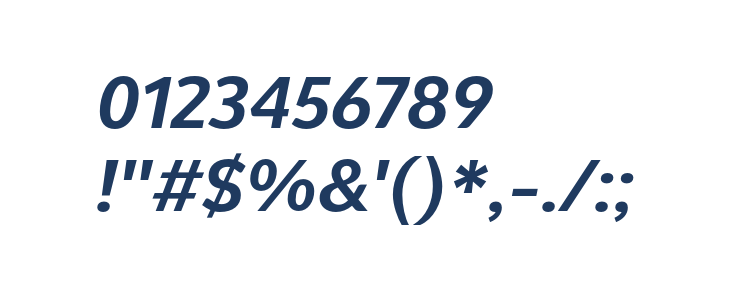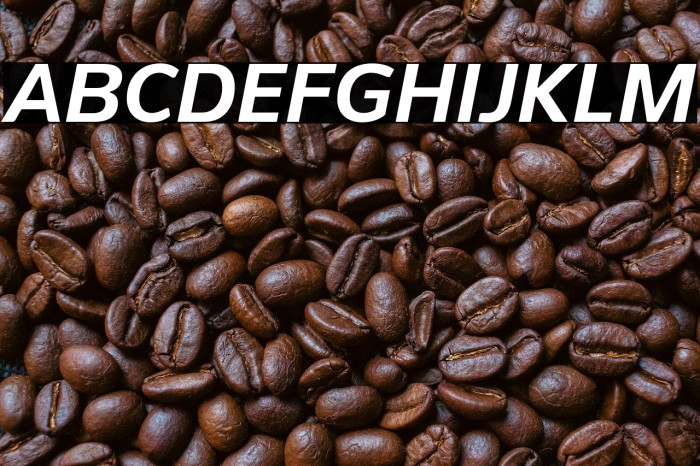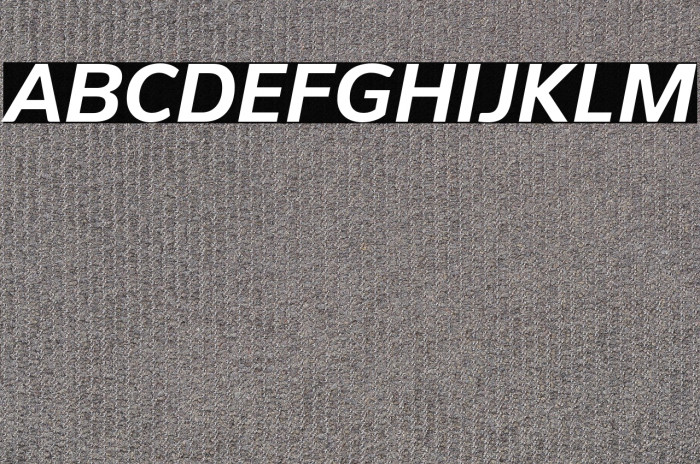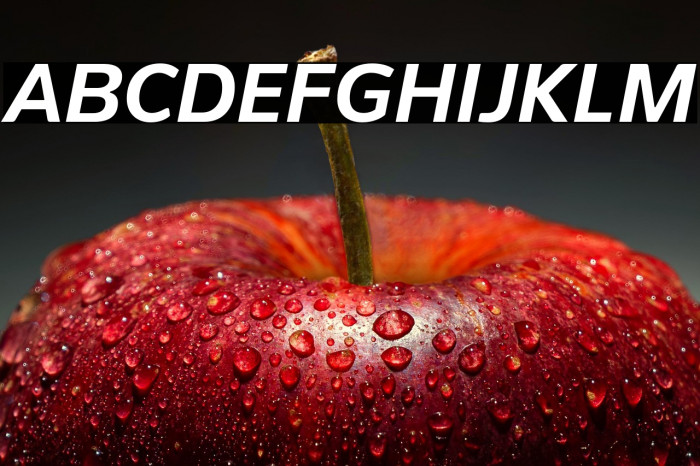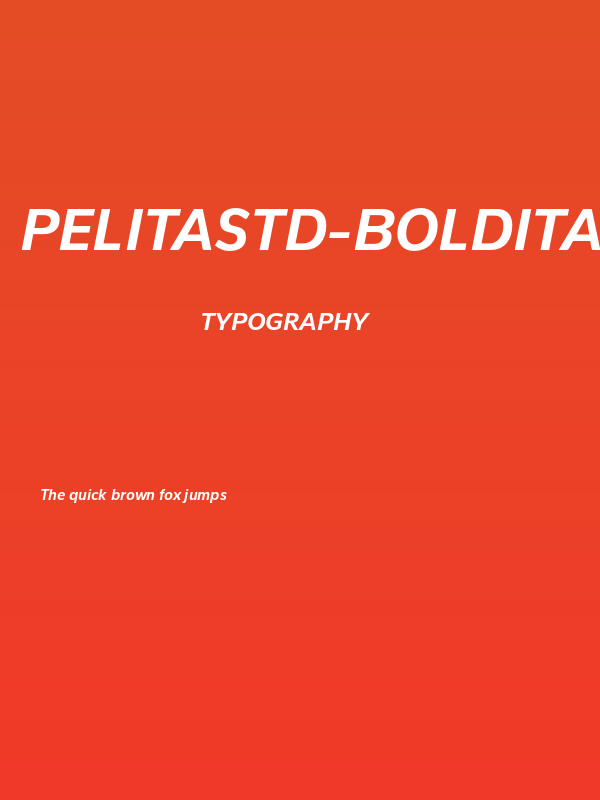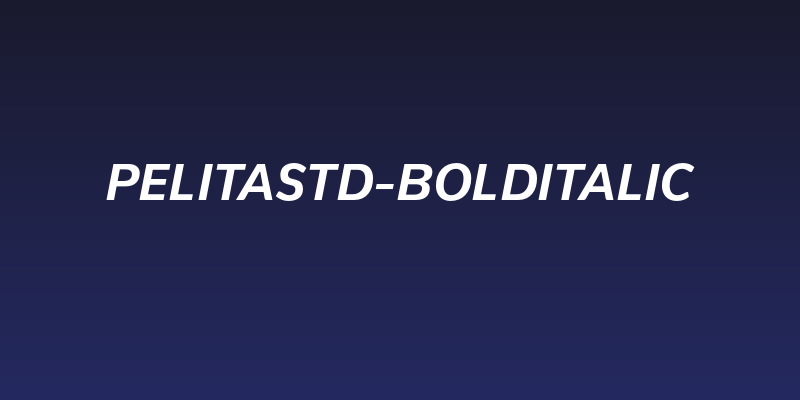
PelitaStd-BoldItalic Font
PelitaStd-BoldItalic Description
This font exhibits a bold and italicized style, characterized by its strong and dynamic appearance. The letters are slightly slanted, giving a sense of motion and elegance. The strokes are consistent in thickness, providing a uniform look across all characters. The uppercase letters are prominent and assertive, while the lowercase letters maintain a harmonious balance with their slightly rounded forms. The numerals are clear and legible, making them suitable for various applications. Special characters are well-defined, ensuring readability and versatility in design projects.
| Proposed Projects | Ideal for branding, advertising, headlines, and any project requiring a bold and stylish typeface. |